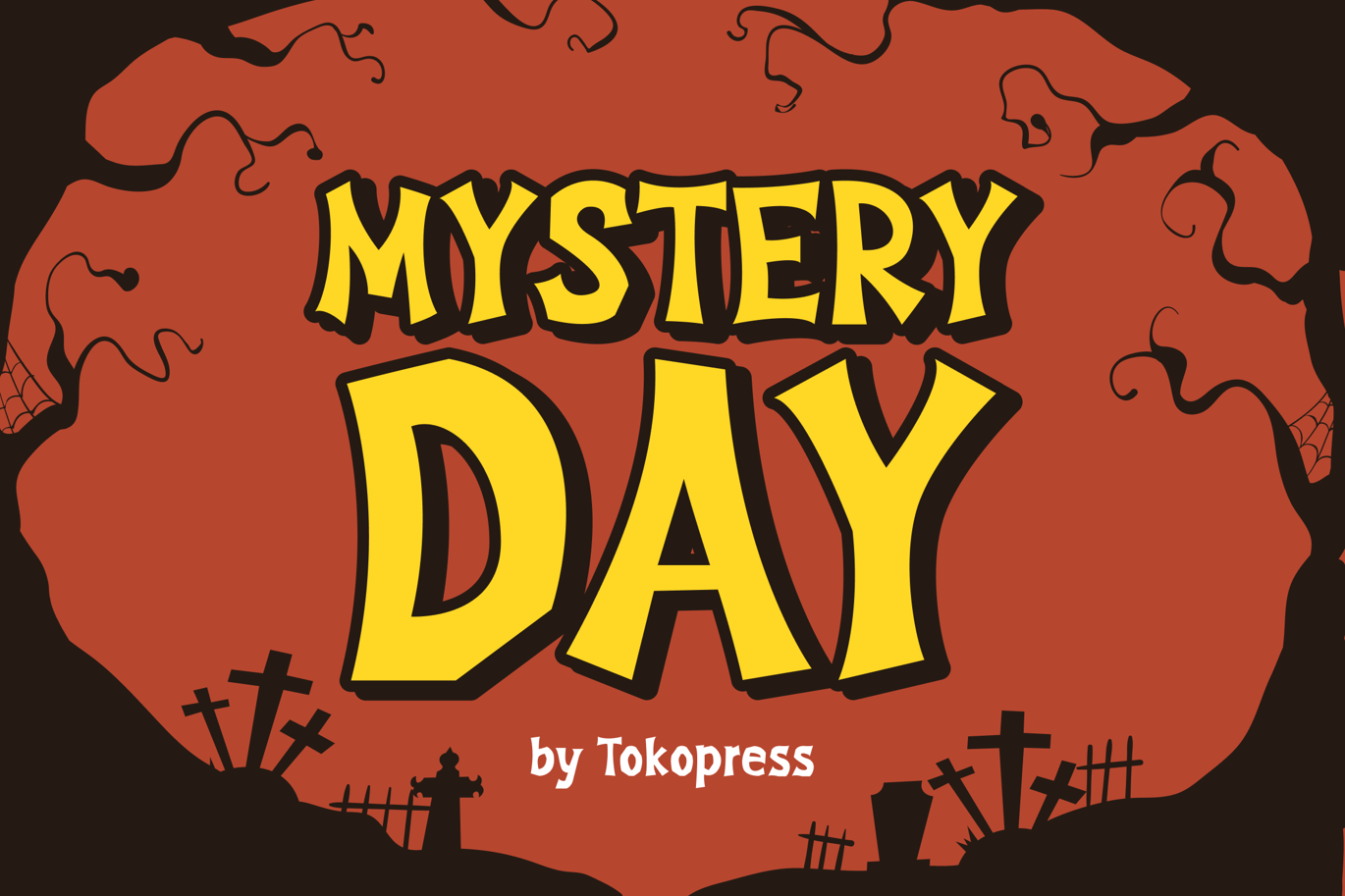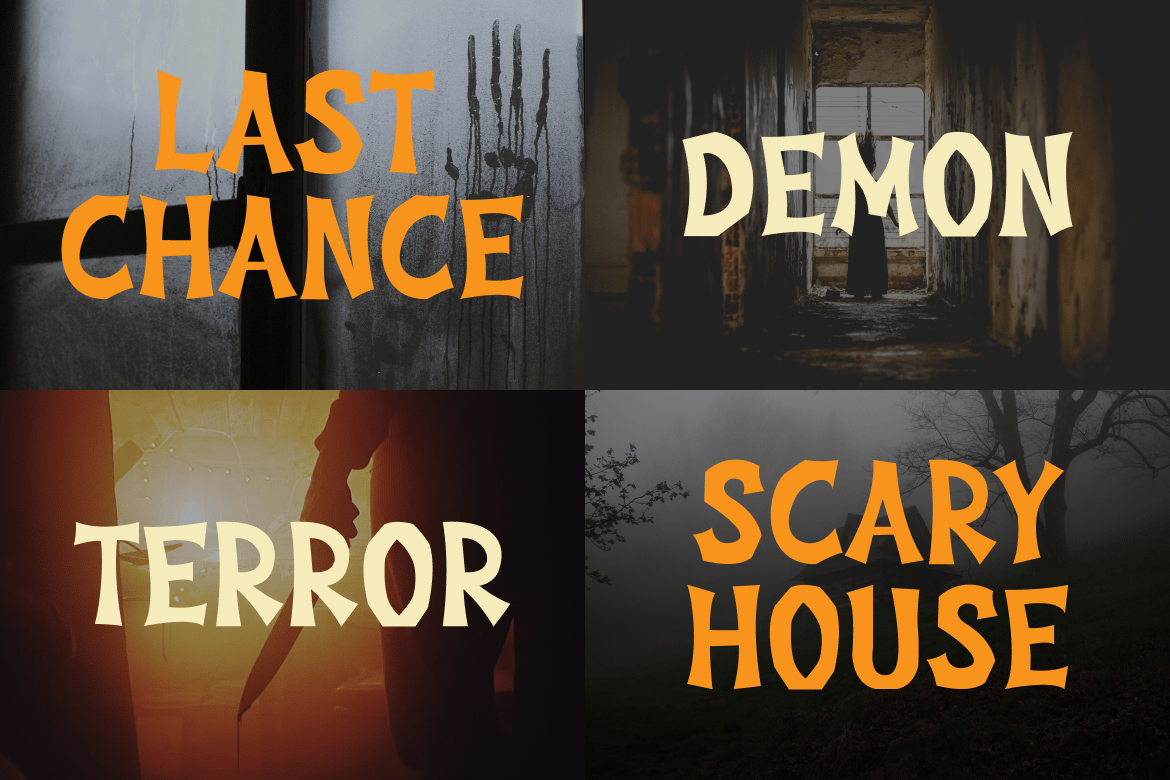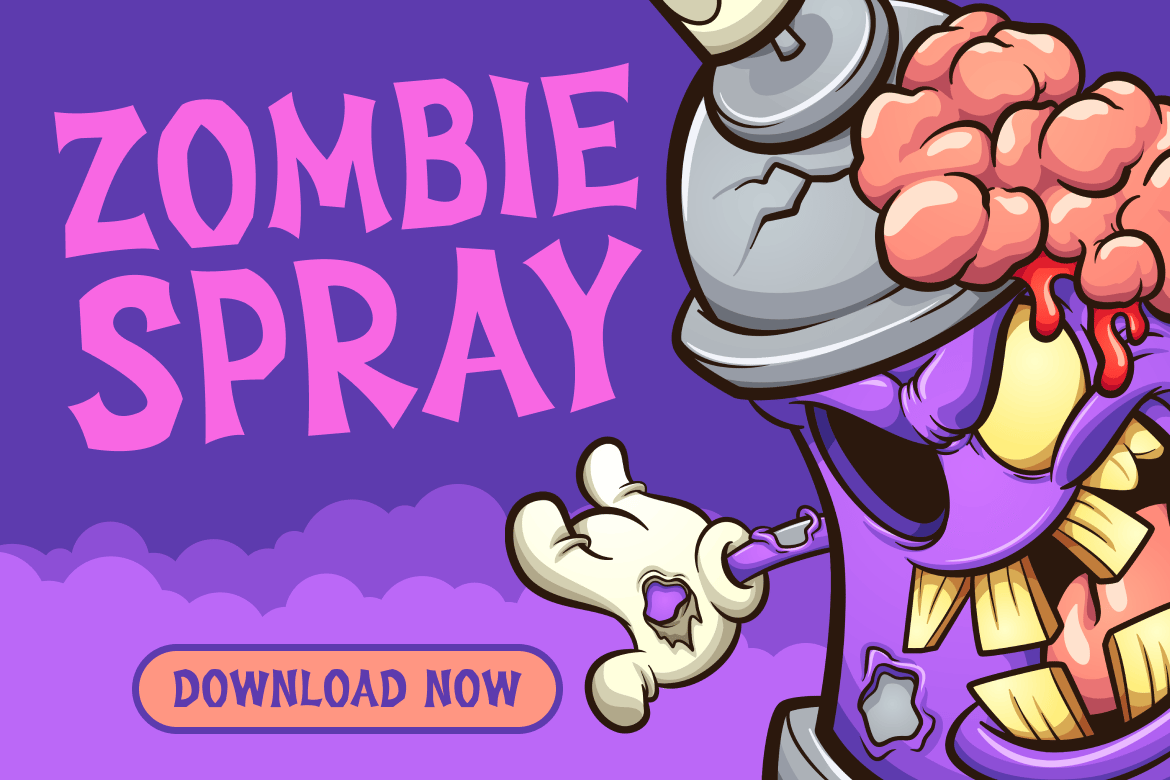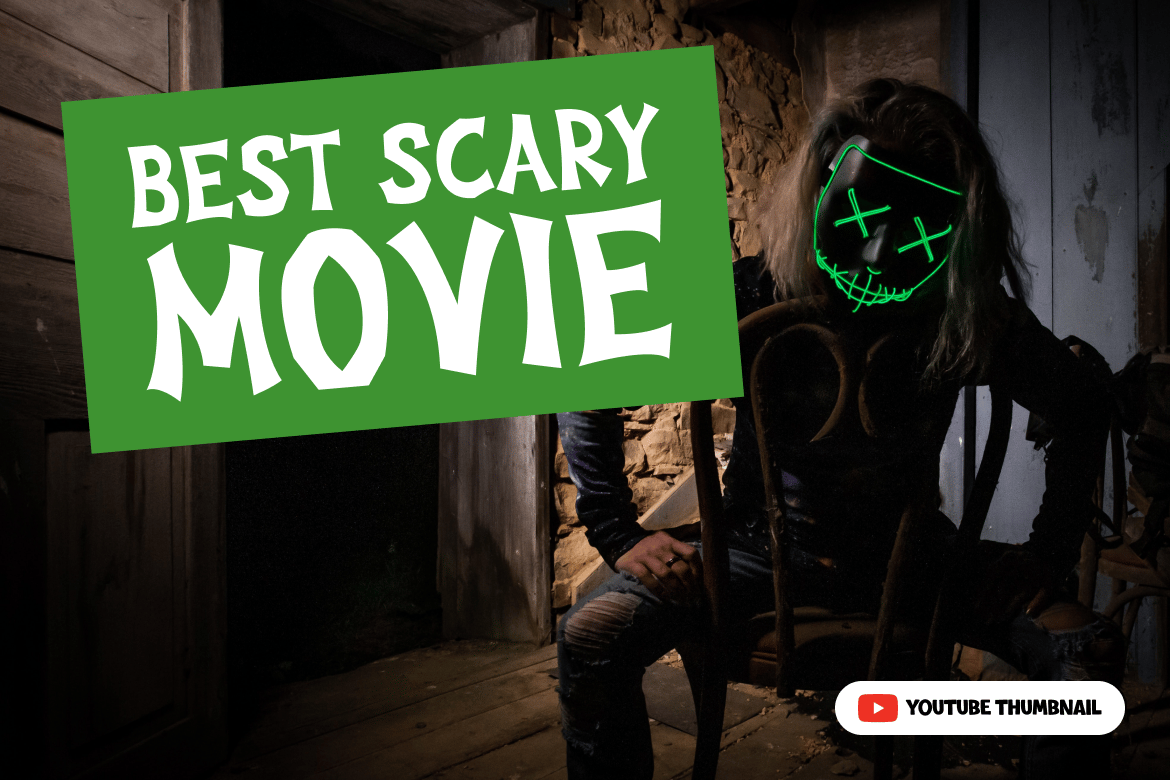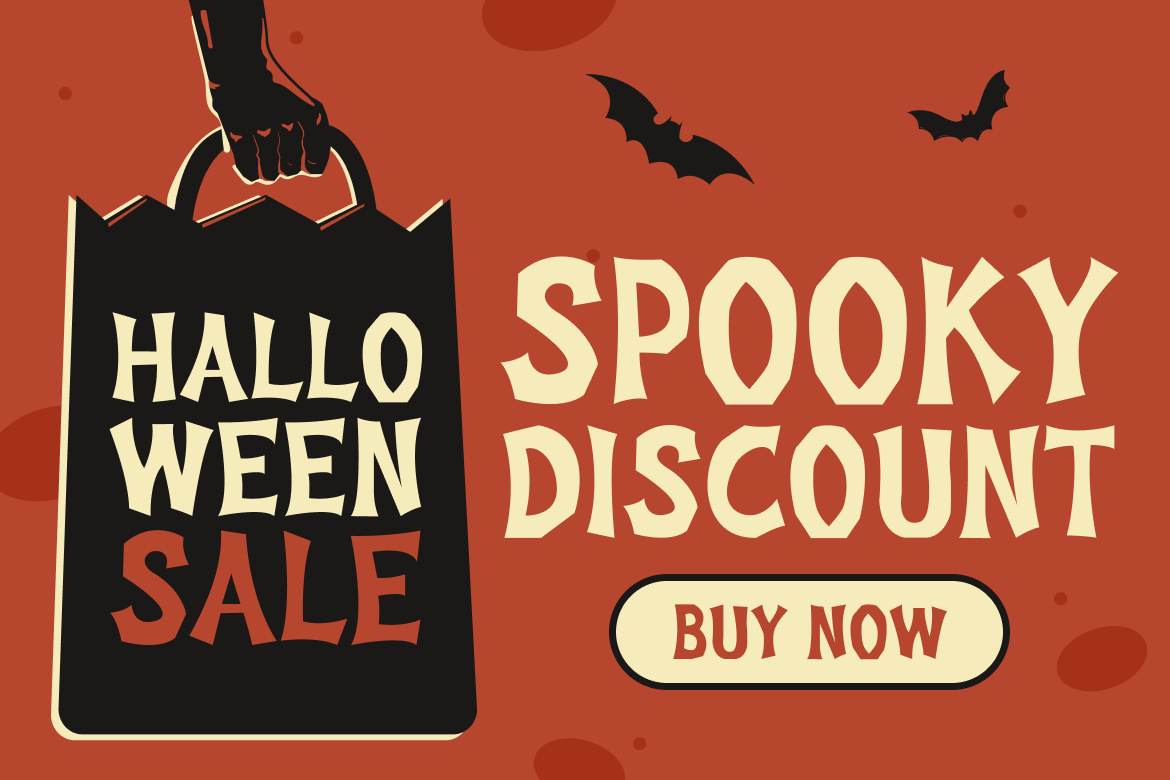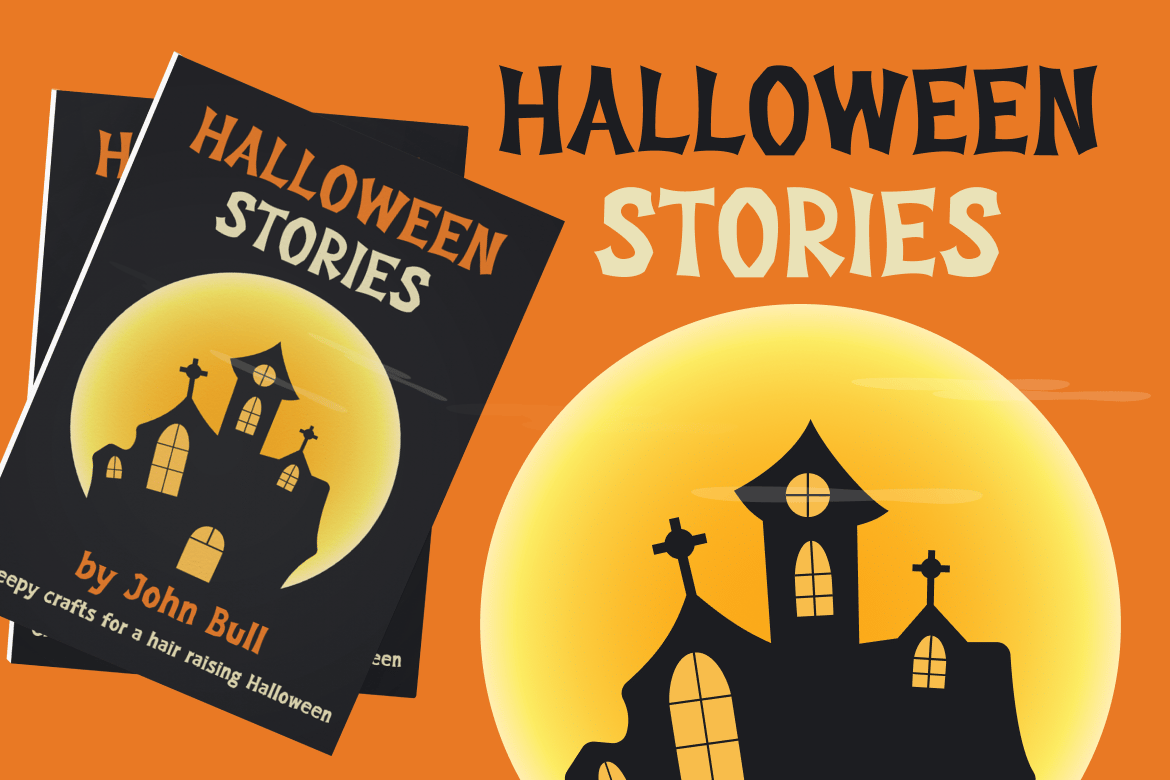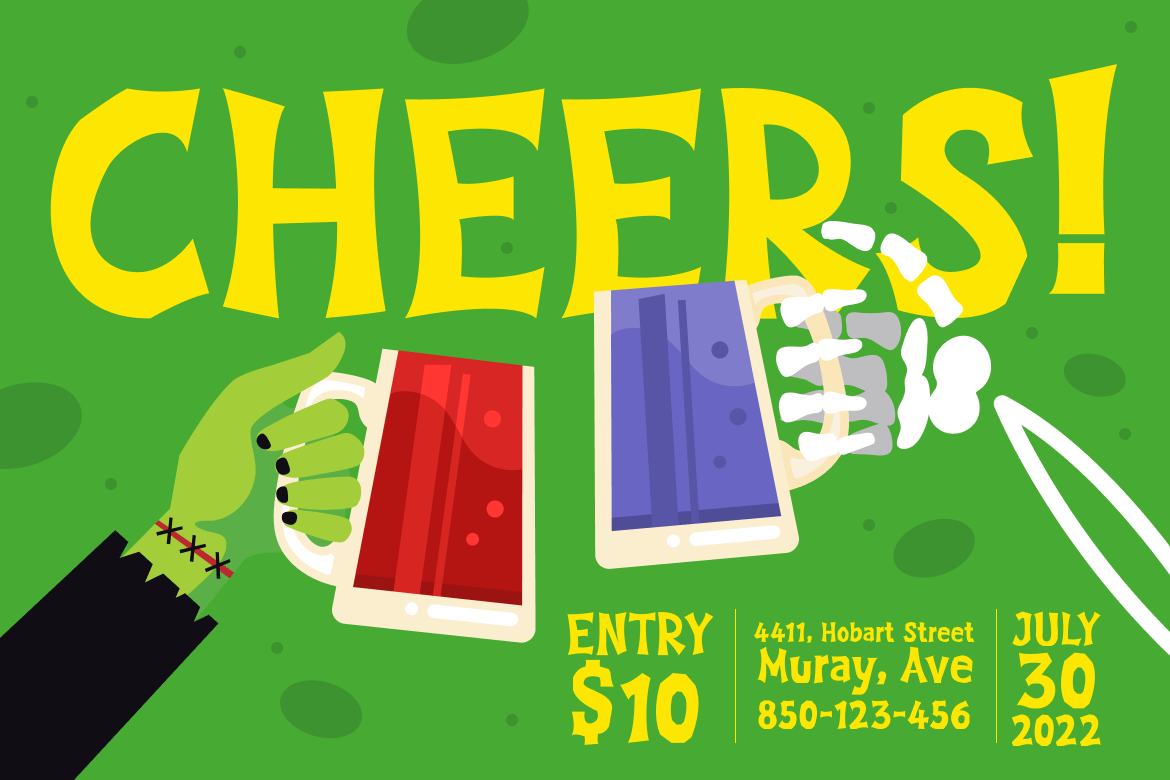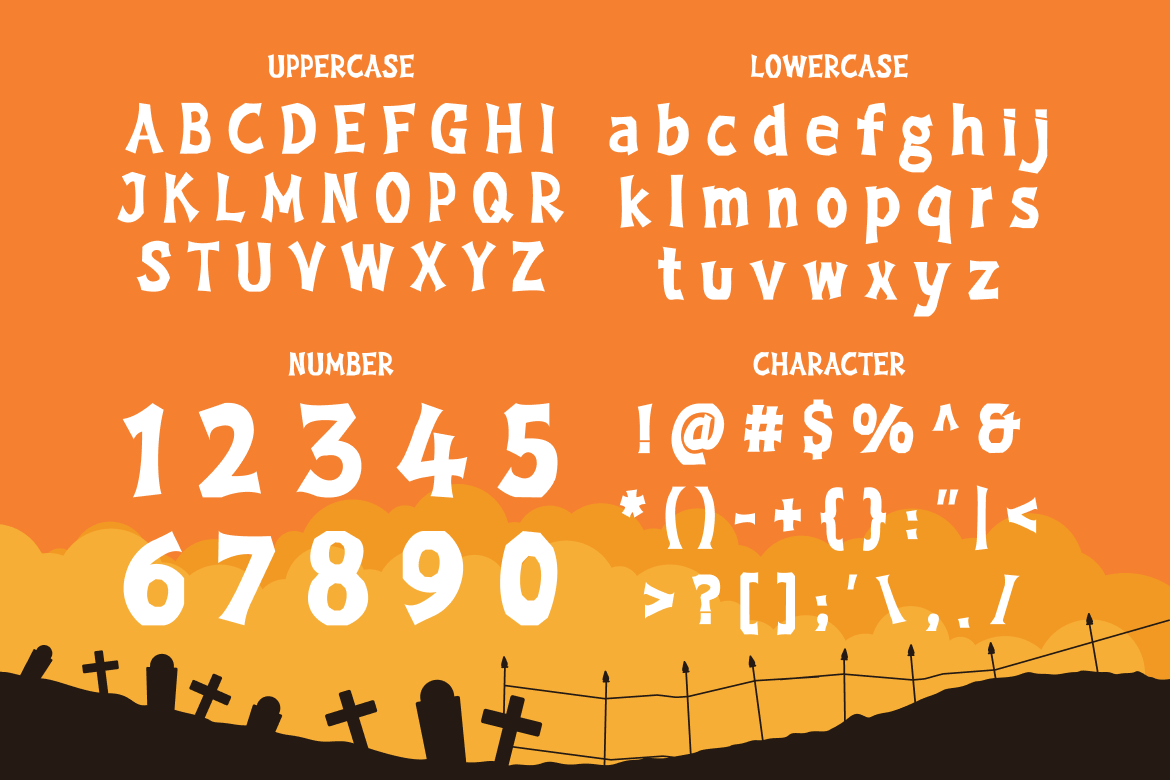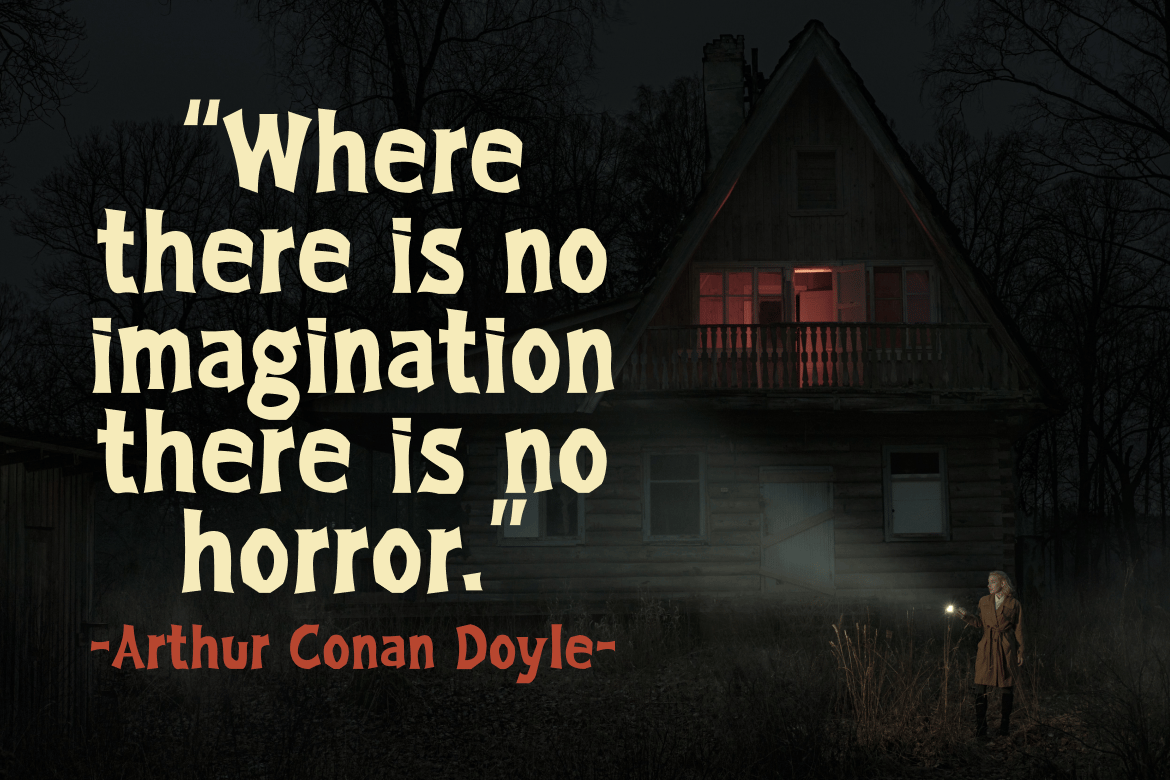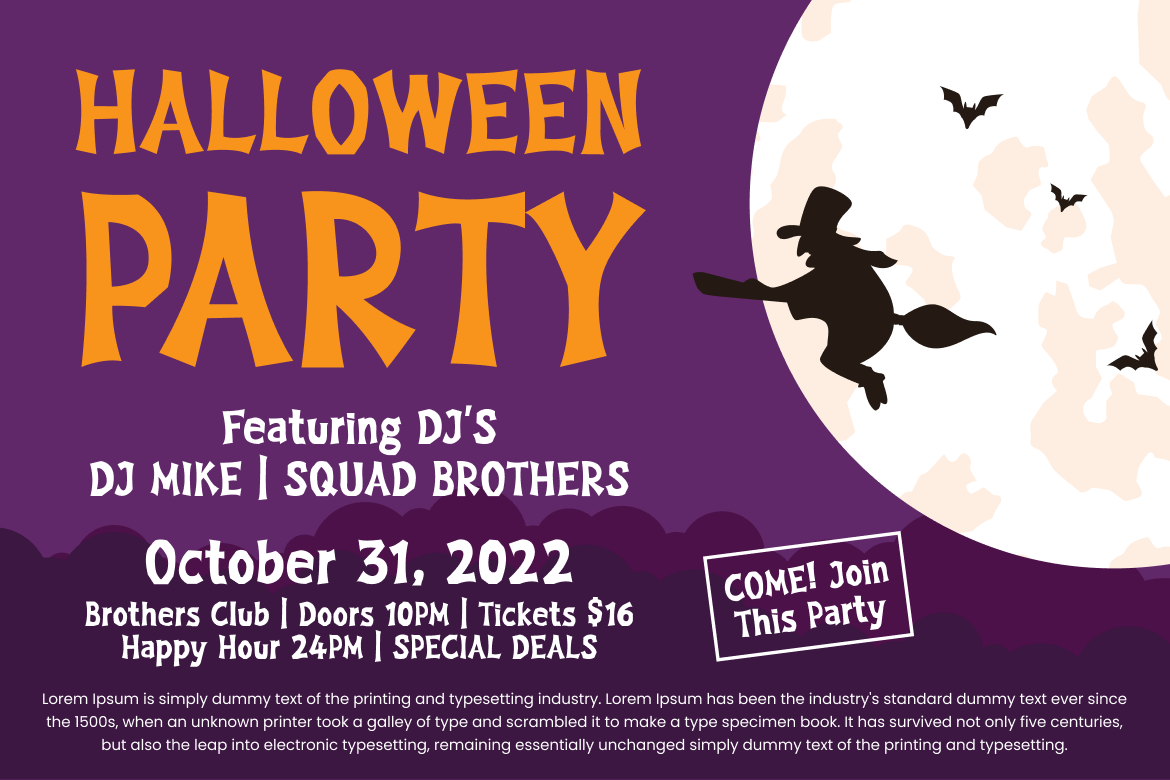
Mystery Day – Spooky Font
Mystery Day – Scary Font
What’s in common when an owl hooting, a creaking death branch tearing the night, and an awful smell of boiling poison from a dark kettle ? It speaks MYSTERY !
Suit perfectly for mystery gaming market audiences, halloween poster, movie title, fun restaurant/ cafe menu, magazine, youtube covers, youtube thumbnails, social media page covers and so on…